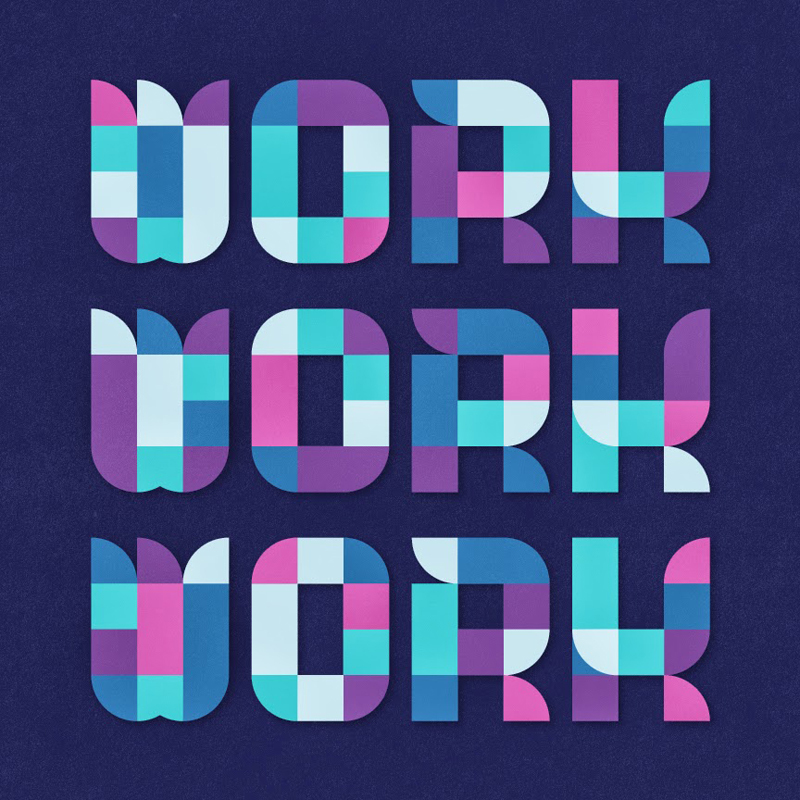
WorkWorkWork Beta
This is my very first font, and I have created it FULLY. But the idea itself is not mine, it's Brent Couchman's idea.
From this picture here
It looked way too good that I had to make it a font, and here it is!
P.S: There was no better name than how it all start. WorkWorkWork.